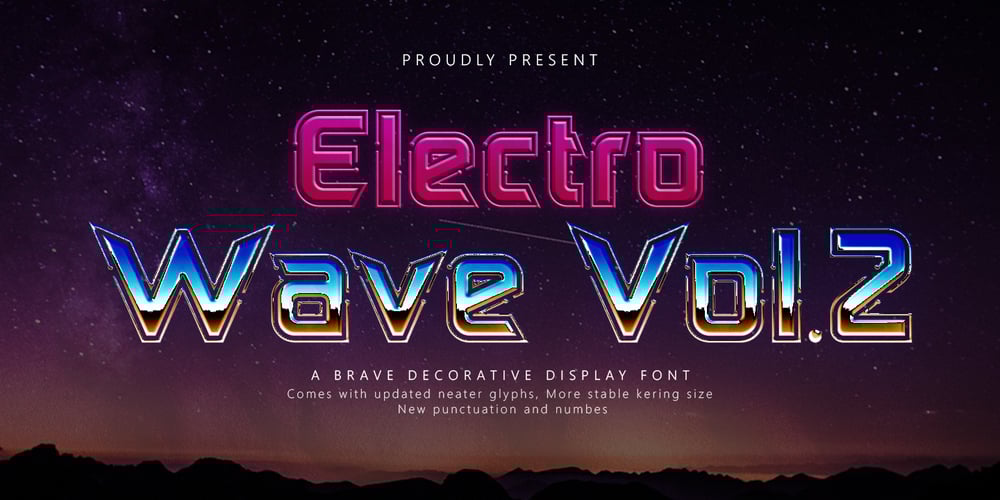
Electro Wave Vol.2
Electro Wave Vol.2 font
Electro Wave Vol.2 Font Family was designed by Jamaluddin and published by Jamalodin. Electro Wave Vol.2 contains 1 styles and family package options. Electro Wave Vol.2 Comes with updated neaterglyphs, more stable kering size, new punctuation & numbes.Electro Wave Vol.2 is a brave decorative display font that is suitable for branding, wedding invitations, greeting cards, posters, name card, quotes, blog header, logo, fashion, apparel, letter, stationery and other projects.The alternative characters were divided into several Open Type features such as Swash, Stylistic Sets, Stylistic Alternates, Contextual Alternates. The Open Type features can be accessed by using Open Type programs such as Adobe Illustrator, Adobe InDesign, Adobe Photoshop Corel Draw X version, And Microsoft Word. And this Font has given PUA unicode (specially coded fonts). so that all the alternate characters can easily be accessed in full by a craftsman or designer.Electro Wave Vol.2 :Uppercase & Lowercase International Language & Symbols Support Punctuation & Number PUA Unicode.If you don’t have a program that supports OpenType features such as Adobe Illustrator and CorelDraw X Versions, you can access all the alternate glyphs using Font Book (Mac) or Character Map (Windows).If you have any question, don’t hesitate to contact me. Thanks for your visit.